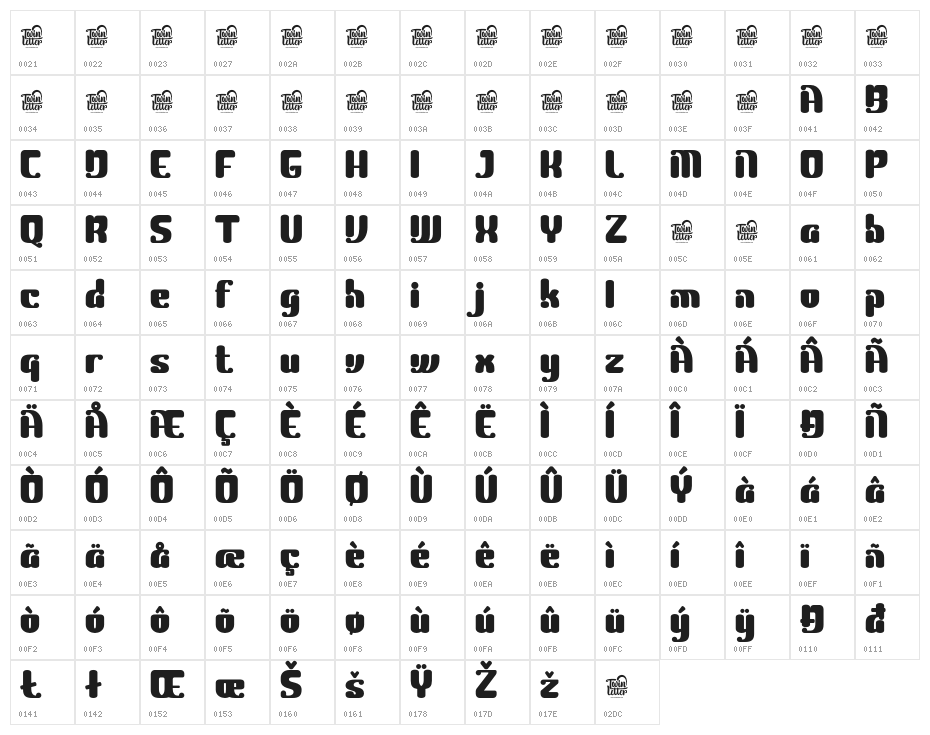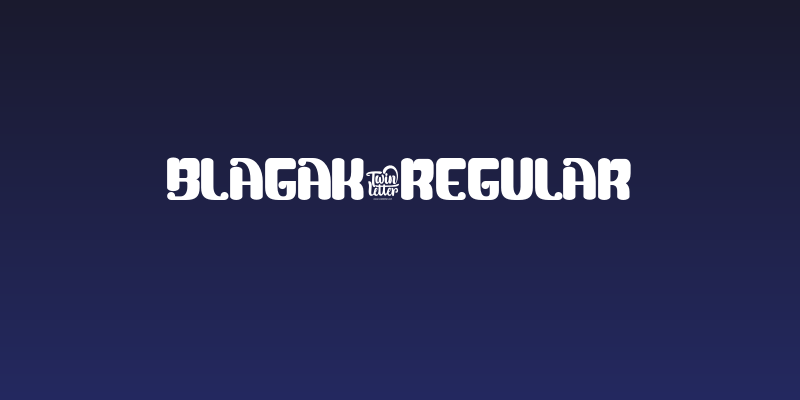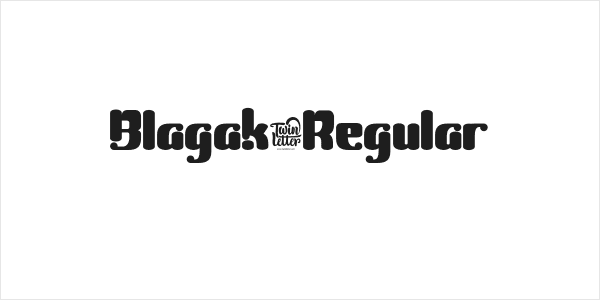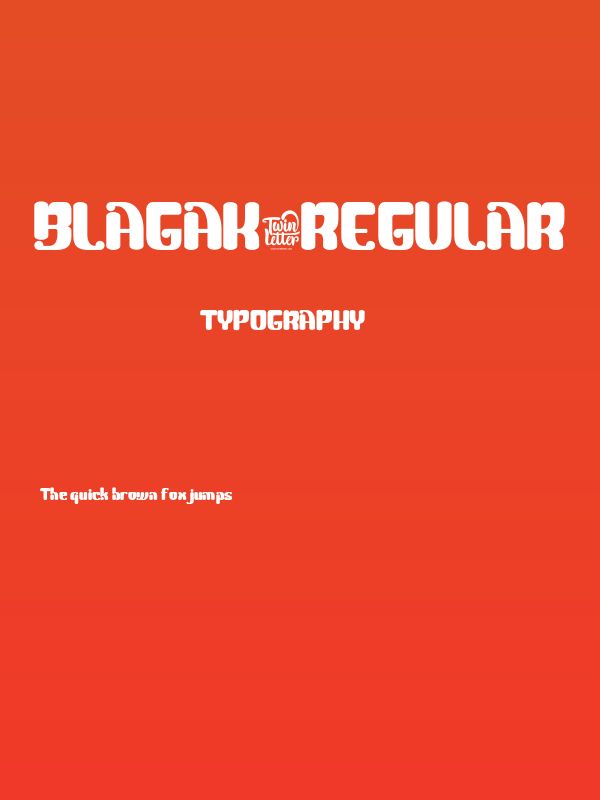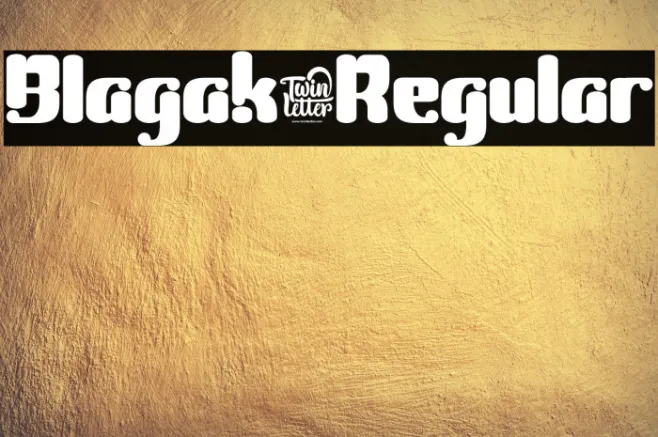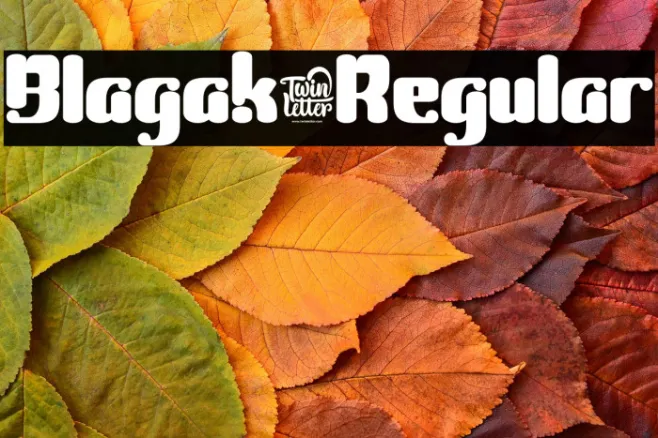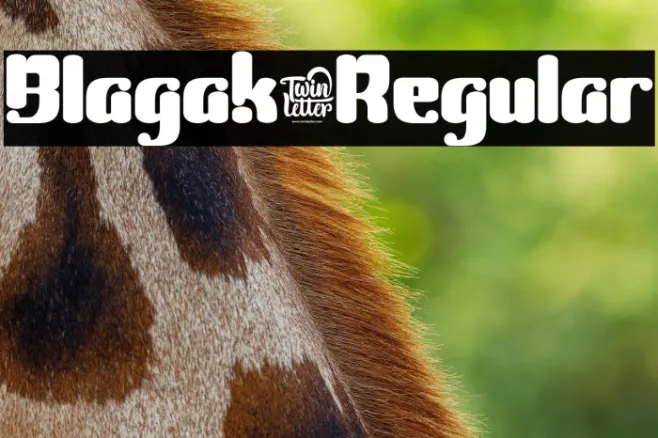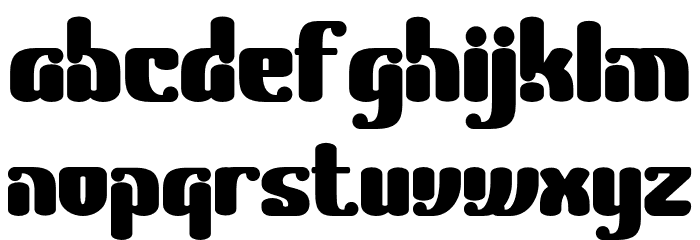
Blagak-Regular Font
Blagak-Regular Description
This font features a bold and rounded style with a unique, playful character. The letters are thick and robust, with a consistent stroke width that gives it a strong presence. The rounded edges and smooth curves add a friendly and approachable feel, making it suitable for creative and informal designs. The font maintains a uniform appearance across both uppercase and lowercase letters, ensuring readability and consistency. Its distinctive style is further highlighted by the slightly condensed letterforms, which contribute to a compact and cohesive look.
| Proposed Projects | Ideal for branding, logos, posters, and playful graphic designs. |